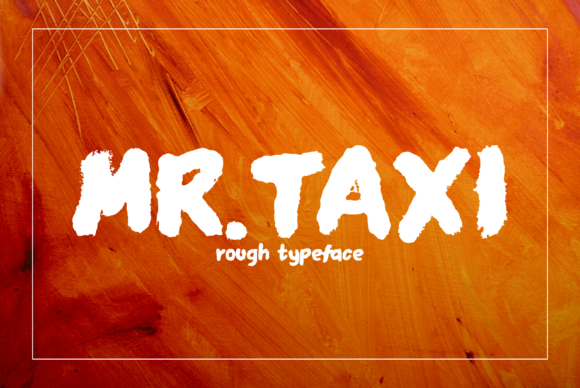
Journey into the realm of visual expression with Mr Taxi Font, a captivating display font that breathes life into your designs. Unleash your creativity and let your imagination soar as you encounter this playful and distinctive typographic masterpiece.
Step into a world where your words dance and your messages resonate with a unique charm. Mr Taxi Font, with its bouncy and quirky personality, is the perfect companion for your creative pursuits. Its playful nature adds a touch of whimsy to any project, inviting your audience to engage with your content in a delightful and memorable way.
Immerse yourself in the versatility of Mr Taxi Font. Whether you're crafting eye-catching headlines, designing vibrant posters, or creating captivating logos, this font will elevate your work to new heights. Its dynamic character adds a touch of sophistication to your designs, making them stand out from the crowd.
With Mr Taxi Font, you'll discover a treasure trove of creative possibilities. Its playful curves and energetic strokes bring a sense of movement and energy to your designs. Let your words come alive as they dance across the page, capturing the attention of your audience and leaving a lasting impression.
But Mr Taxi Font is more than just a pretty face. It's a powerful tool that can transform your designs into captivating works of art. Its carefully crafted characters exude personality and charm, inviting your audience to connect with your message on a deeper level.
So, if you're ready to take your designs to the next level, embrace the magic of Mr Taxi Font. Let its whimsical nature ignite your creativity and watch as your work blossoms into masterpieces that captivate and inspire.